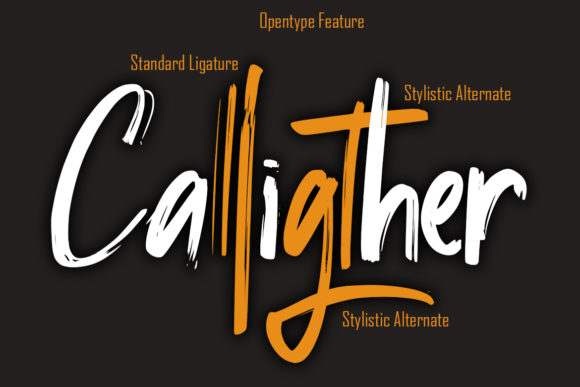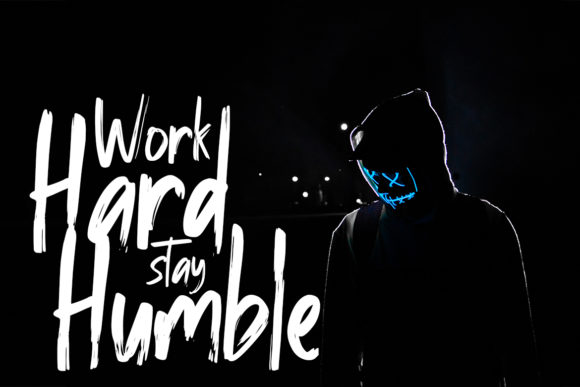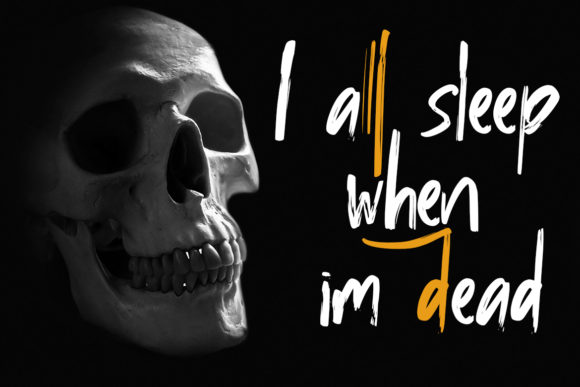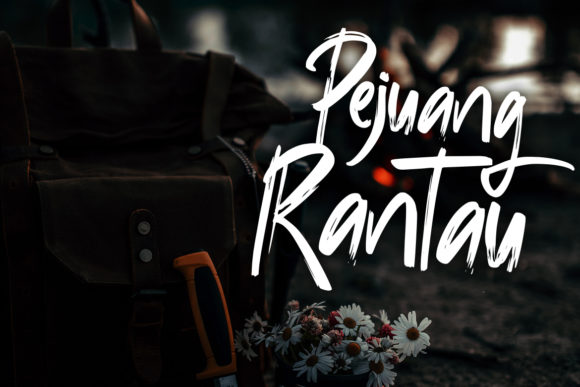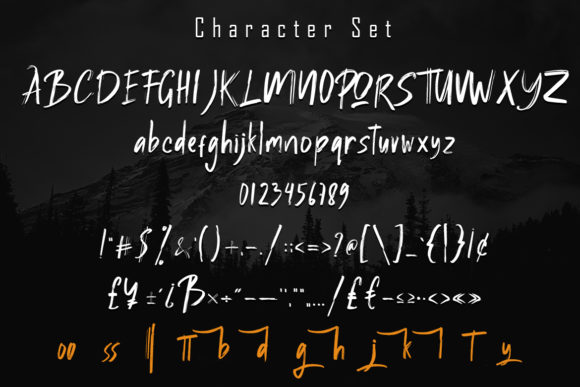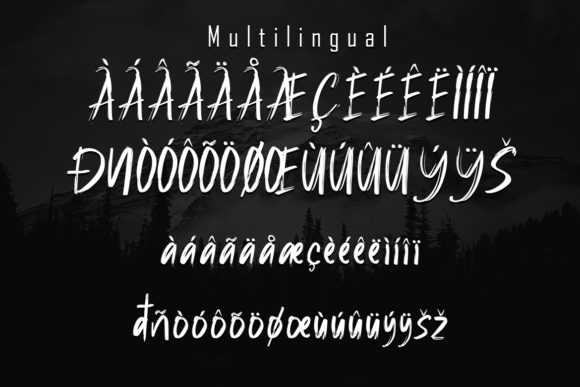
Bring Your Designs to Life with Calligther Font
Have you ever been stuck in a creative rut, unable to find the perfect font to bring your ideas to life? You’re not alone. We’ve all been there – staring at a blank canvas, desperately searching for the right words to convey our vision. But what if I told you that there’s a font that can change all that?
Meet Calligther Font, a bold and chunky lettered display font that’s been crafted with the help of a brush pen. Its unique texture and character make it the perfect addition to any creative project, from social media graphics to advertising campaigns. Whether you’re a seasoned designer or just starting out, Calligther Font is a valuable tool that can help you stand out from the crowd.
With its versatility and style, Calligther Font is a must-have for any designer looking to add some edge to their work. So why settle for ordinary when you can have extraordinary? Give Calligther Font a try and see the difference it can make in your designs.
Calligther Font Key Features
- Font Family: Calligther Font is a unique, hand-drawn font designed for creative and artistic purposes.
- Character Set: Includes a wide range of characters, including uppercase and lowercase letters, numbers, and punctuation marks, as well as special characters and ligatures.
- Resolution: Designed to be scalable, Calligther Font looks great at any resolution, from low-resolution screens to high-resolution printing.
- Unique Characteristics: Calligther Font features a distinctive, hand-drawn style with subtle imperfections and variations, giving it a unique and artistic feel.
Designer Review: Calligther Font
As a designer, I was excited to test out the Calligther Font and see if it would live up to its promise of elegant, handwritten charm. ✨ The first thing that caught my eye was the beautiful, fluid script style that evokes the feeling of a handwritten letter. It’s perfect for creating a sense of warmth and personality in your designs.
The font is also incredibly versatile, with a wide range of weights and styles to choose from. This makes it easy to adapt to different design contexts, from invitations to blog posts. ✨ Additionally, the font is highly customizable, with options for font size, color, and spacing that allow you to fine-tune your design to perfection.
- ⚠️ The font may be too ornate for some designs, potentially overpowering the message or content.
- ⚠️ Some users may find the font’s spacing and letterforms to be inconsistent, which can make it difficult to read in certain contexts.
Overall, I was impressed with the Calligther Font and its potential for adding a touch of elegance to your designs. While it may not be suitable for every project, it’s definitely worth considering for designs that require a more personal and whimsical feel. With a little practice and patience, I think you’ll find that the Calligther Font is a valuable addition to your design toolkit.
Tips for Getting the Most Out of Calligther Font
For best results, use Calligther Font on a high-contrast background and with a clear, legible font size.
You can also experiment with different font sizes and styles to achieve the desired effect.
Calligther Font is ideal for:
- Handwritten-style quotes and captions.
- Artistic and creative projects.
Great Vibes is a modern, elegant script font that is perfect for creating a sophisticated and stylish look. It is ideal for use in wedding invitations, event branding, and other creative projects where a touch of luxury is desired. Great Vibes is a great alternative to Calligther Font as it offers a similar level of elegance and sophistication, but with a more refined and polished feel.
Dancing Script is a beautiful, handwritten font that is perfect for adding a touch of whimsy and personality to your designs. It is ideal for use in creative projects such as blog posts, social media graphics, and advertising materials. Dancing Script is a great alternative to Calligther Font as it offers a similar level of playfulness and expressiveness, but with a more fluid and dynamic feel.
What is the character set of Calligther?
Calligther includes a comprehensive character set that includes Latin, Cyrillic, and Greek alphabets, as well as a range of punctuation and symbol characters. The font also includes support for many languages, including English, Spanish, French, German, Italian, Portuguese, Dutch, Russian, and more. If you need to support a specific language or character set, please contact the font vendor for more information.